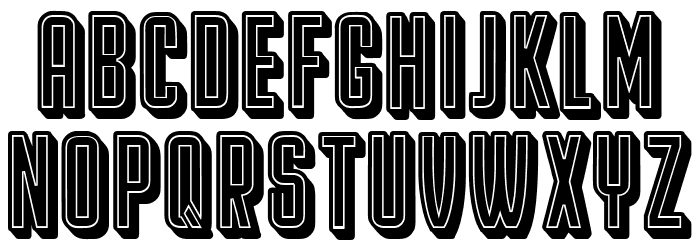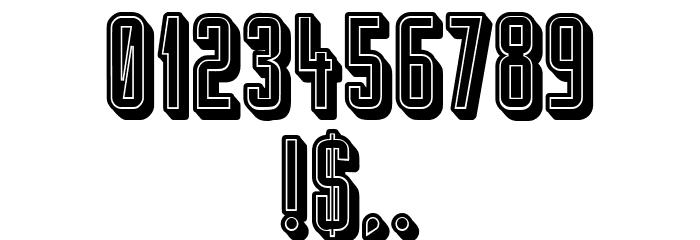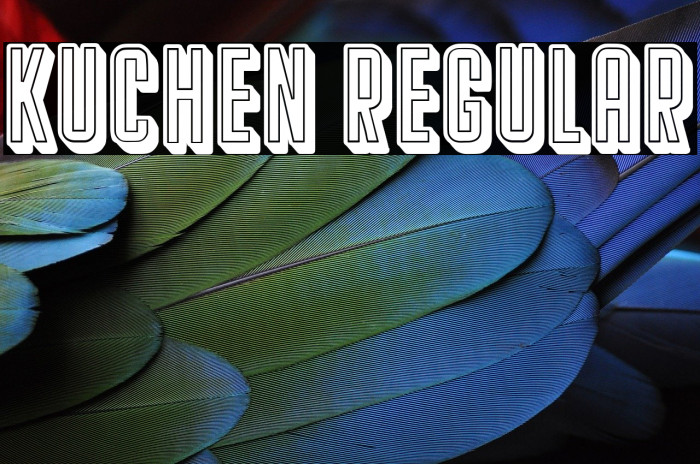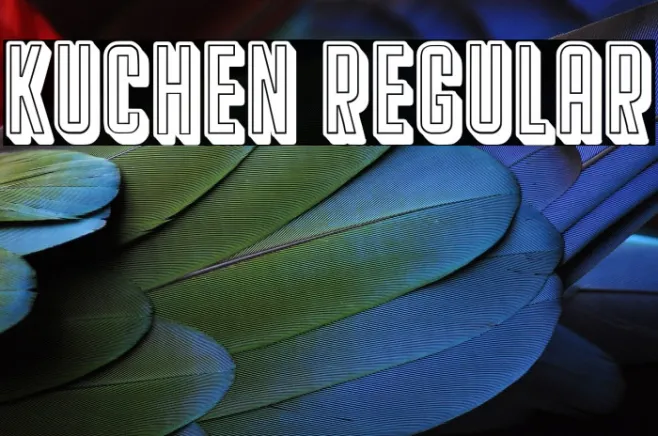
Kuchen Regular Font
This font features a bold, decorative style with a strong outline that gives each character a three-dimensional appearance. The uppercase letters are designed with a consistent height and width, creating a uniform look across the alphabet. The numbers and special characters maintain this bold, outlined style, ensuring cohesion throughout the set. The font's design is eye-catching and suitable for projects that require a striking visual impact. Its geometric shapes and clean lines make it ideal for modern and contemporary designs.
A bold, decorative font with a strong outline and three-dimensional appearance.
- Proposed Projects: Ideal for posters, logos, headlines, and any project needing a bold, impactful typeface.